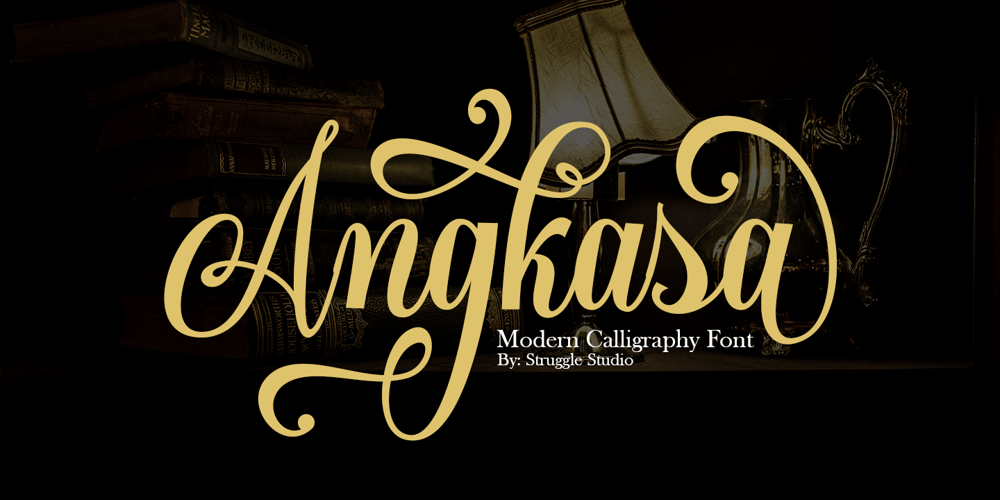
Angkasa Script Font Family was designed by Andri Kurniawan and published by Struggle Studio. Angkasa Script contains 1 styles and family package options. Looking for vintage script fonts?Angkasa is a vintage handwritten font inspired by traditional Calligraphy, Angkasa font includes a full set of Classic upper and lower case letters, multilingual symbols, numbers, punctuation and ligatures.